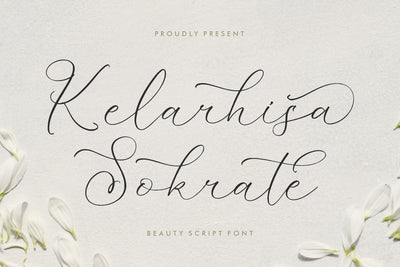
Kelarhisa Sokrate - Beauty Script Font
Proudly present Kelarhisa Sokrate - Beauty Script Font , created by Storytype,
A luxury script that has own unique style & modern look.